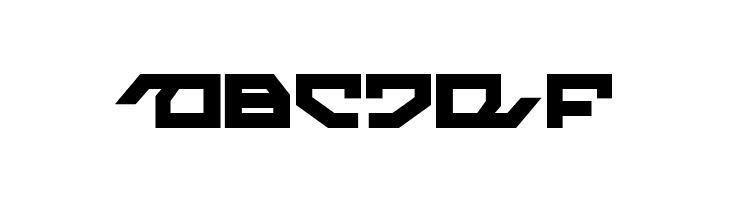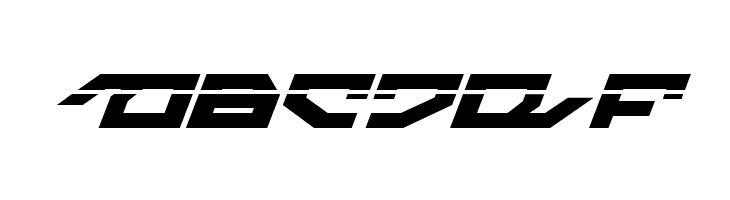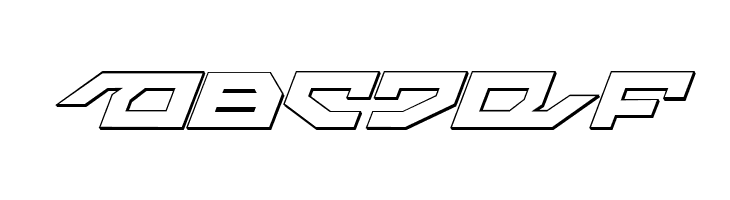
HolLeigh Caps Font
A futuristic, angular italic font with a bold, high-tech design.
A futuristic, angular font with a dynamic slant and outline style.
A bold, italicized font with a futuristic and angular design.
A futuristic, angular font with bold geometric shapes.
A futuristic, extra-condensed italic font with sharp, angular lines.